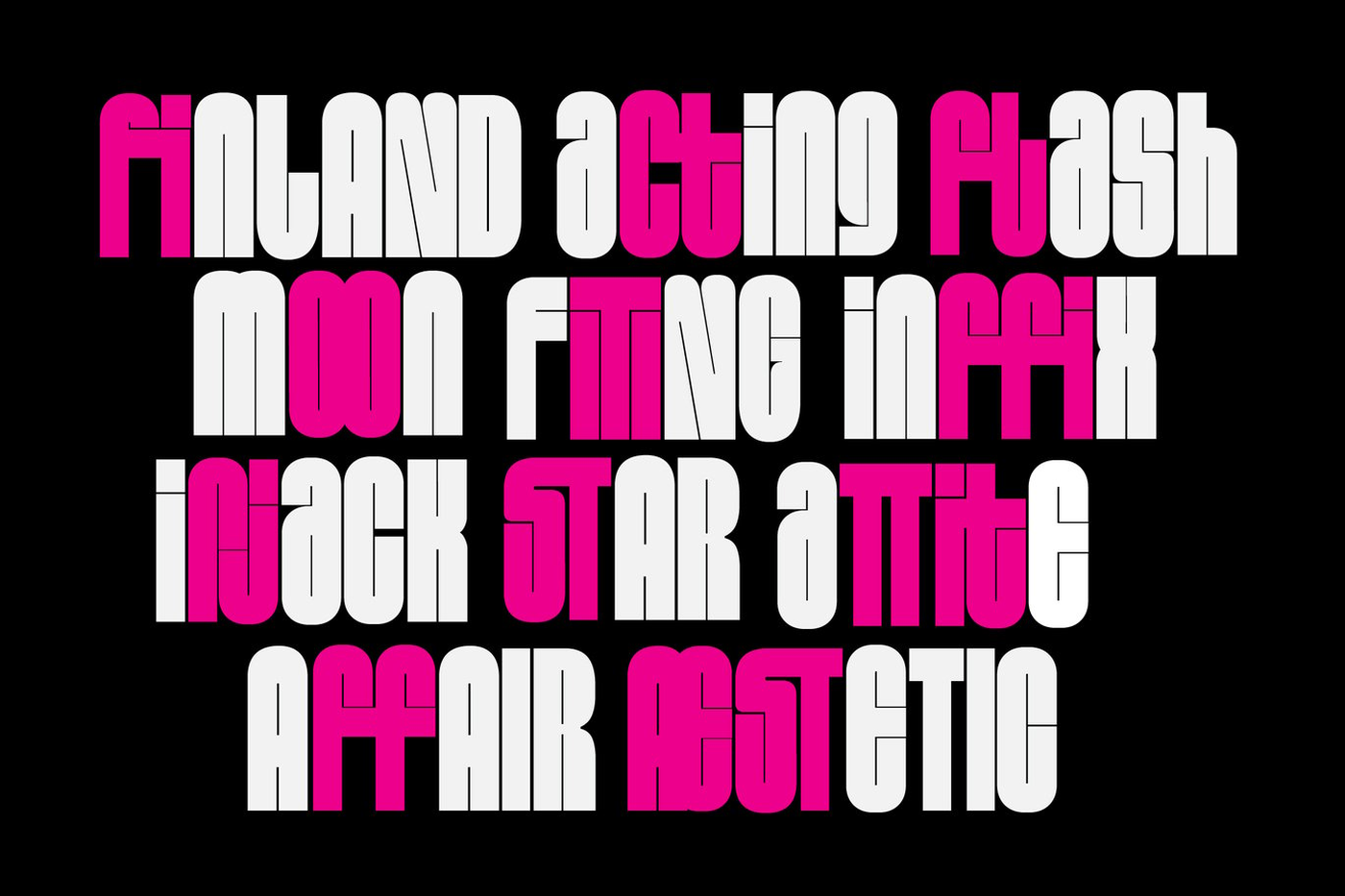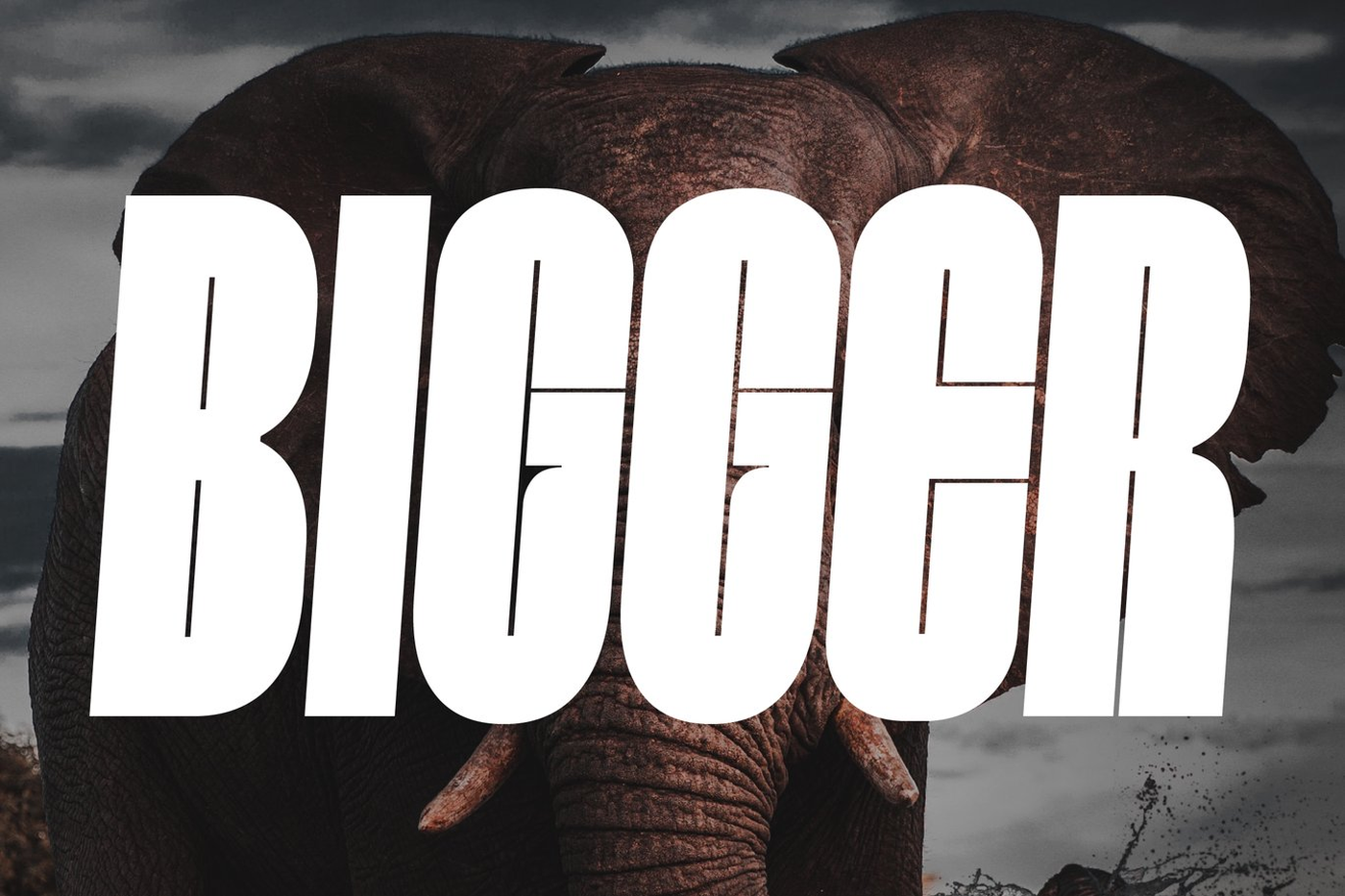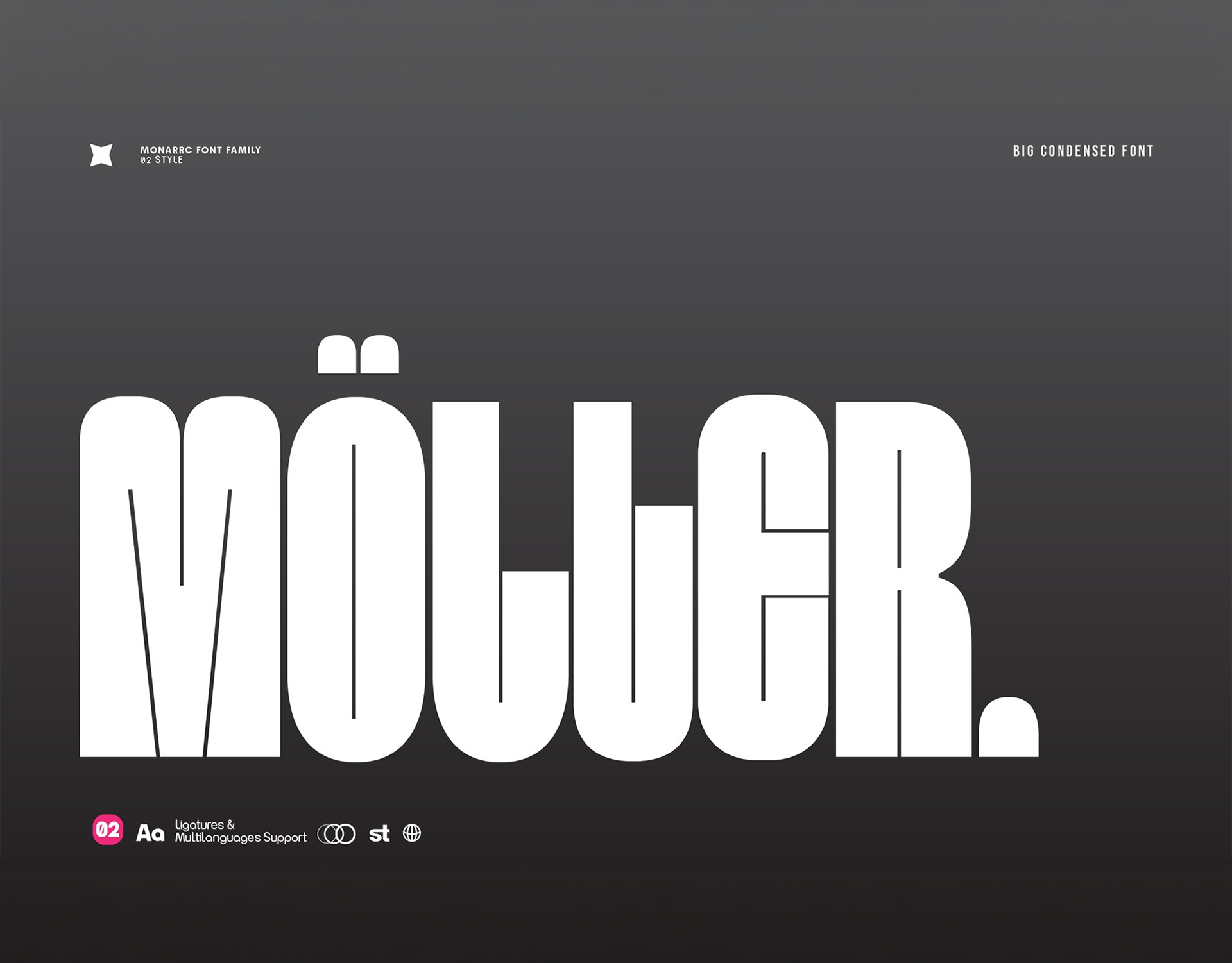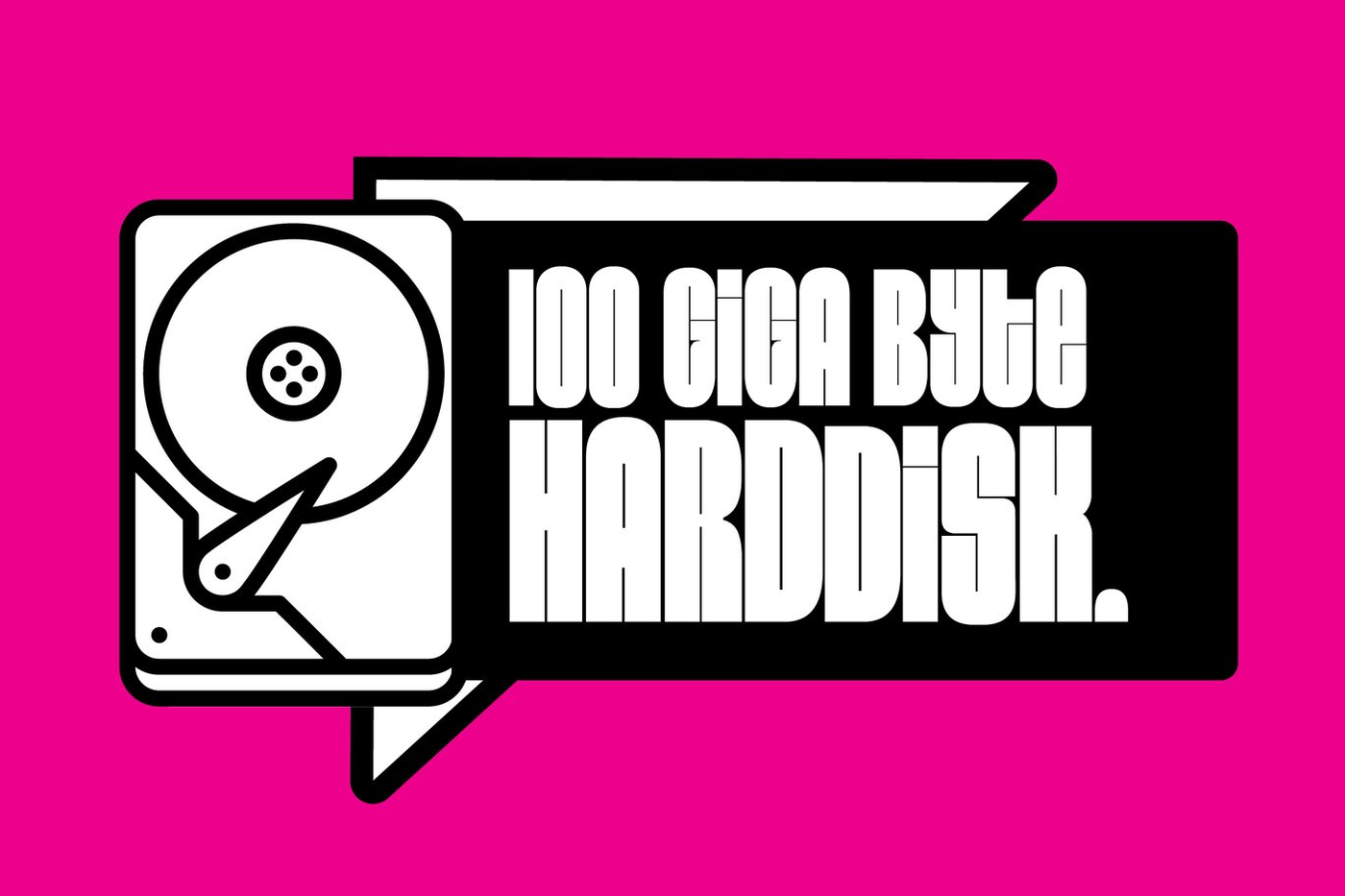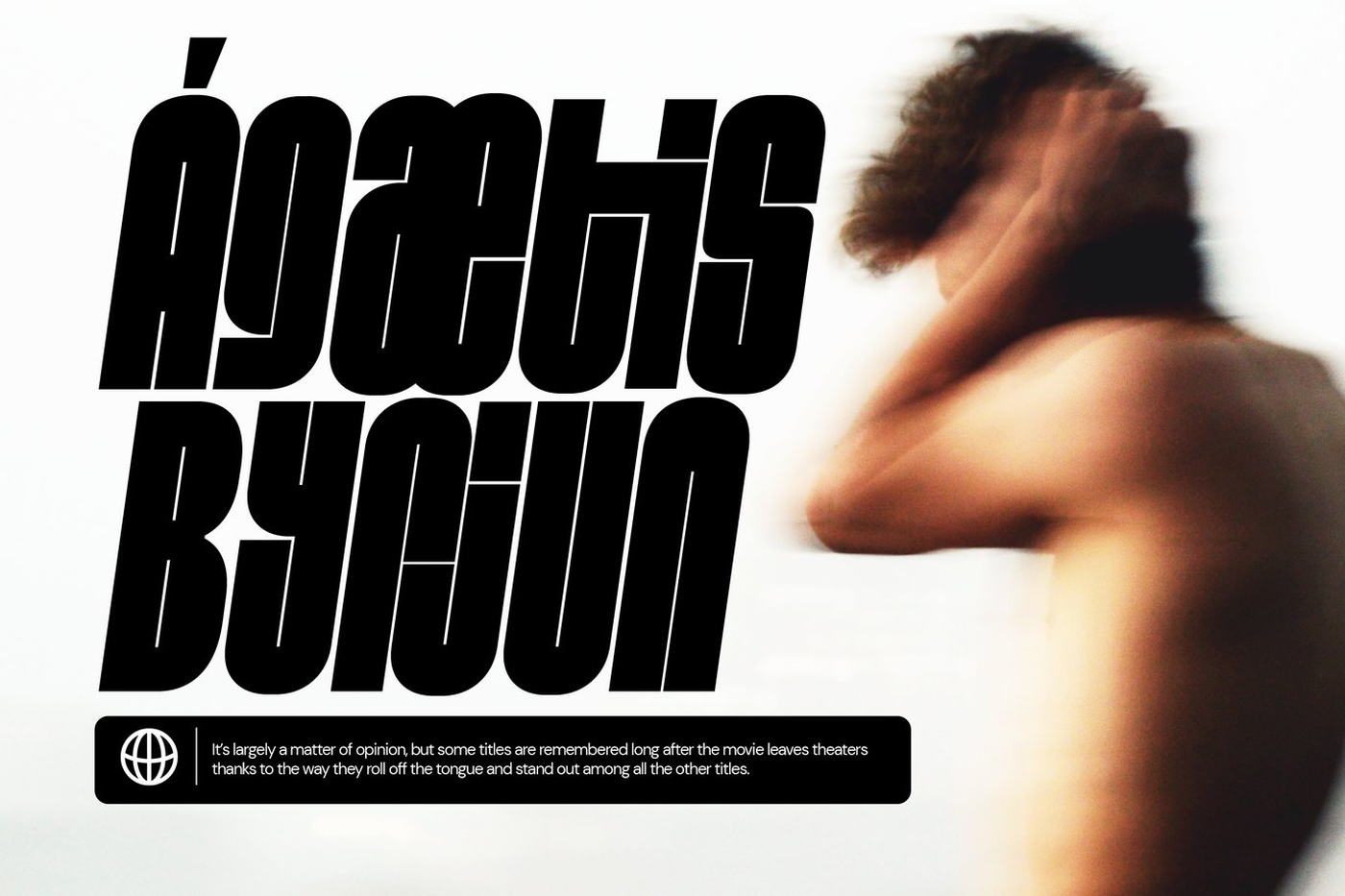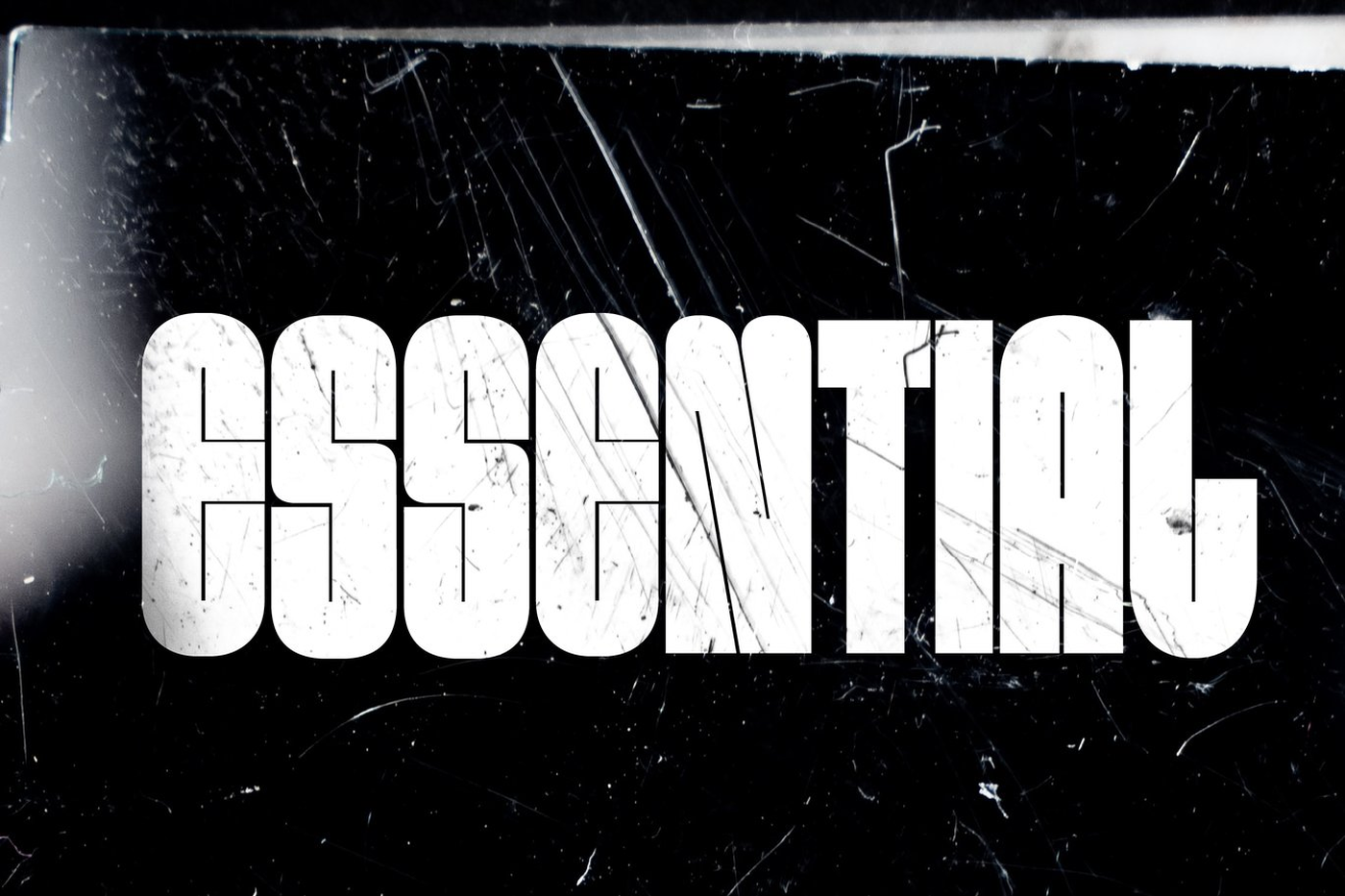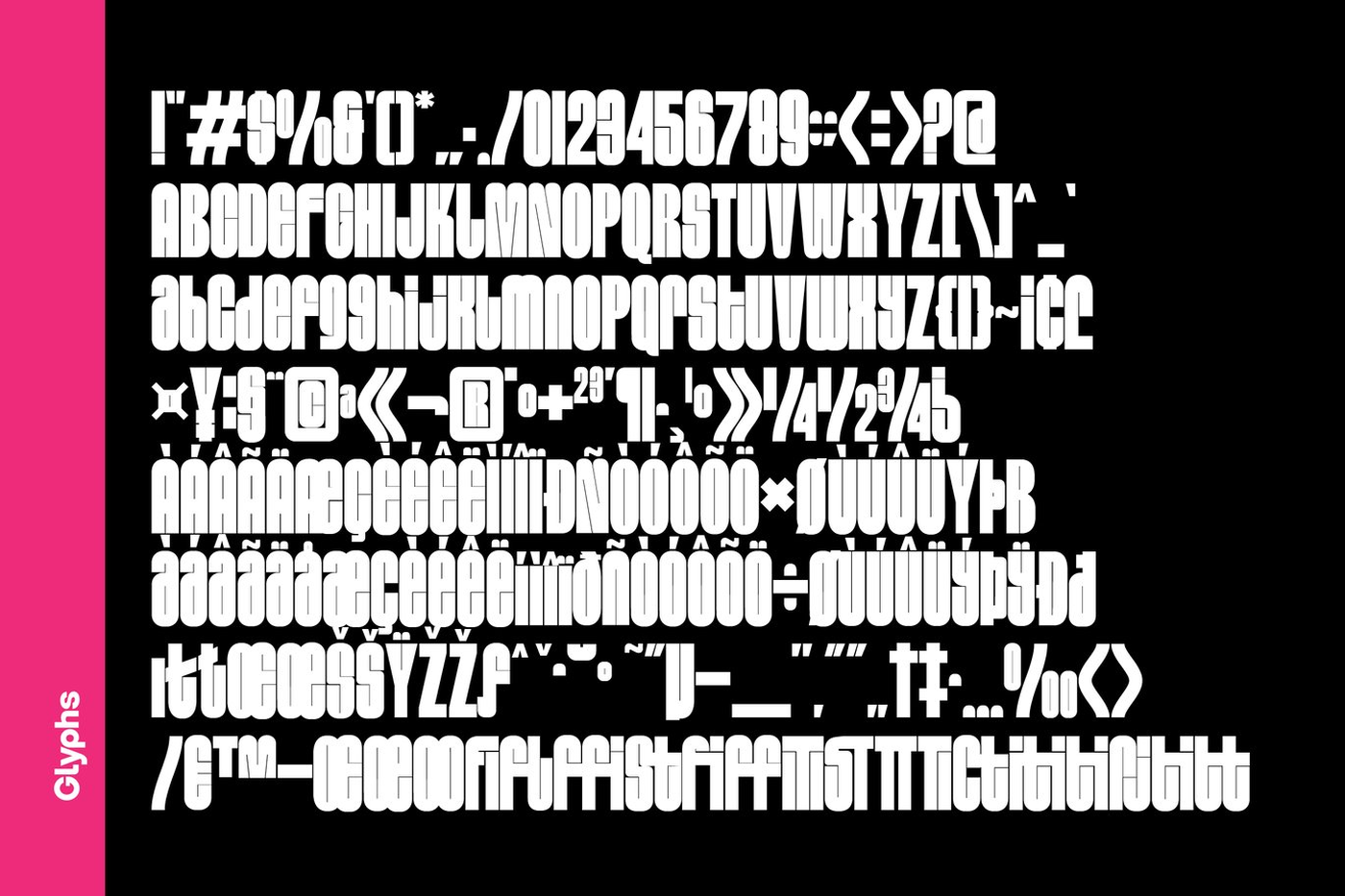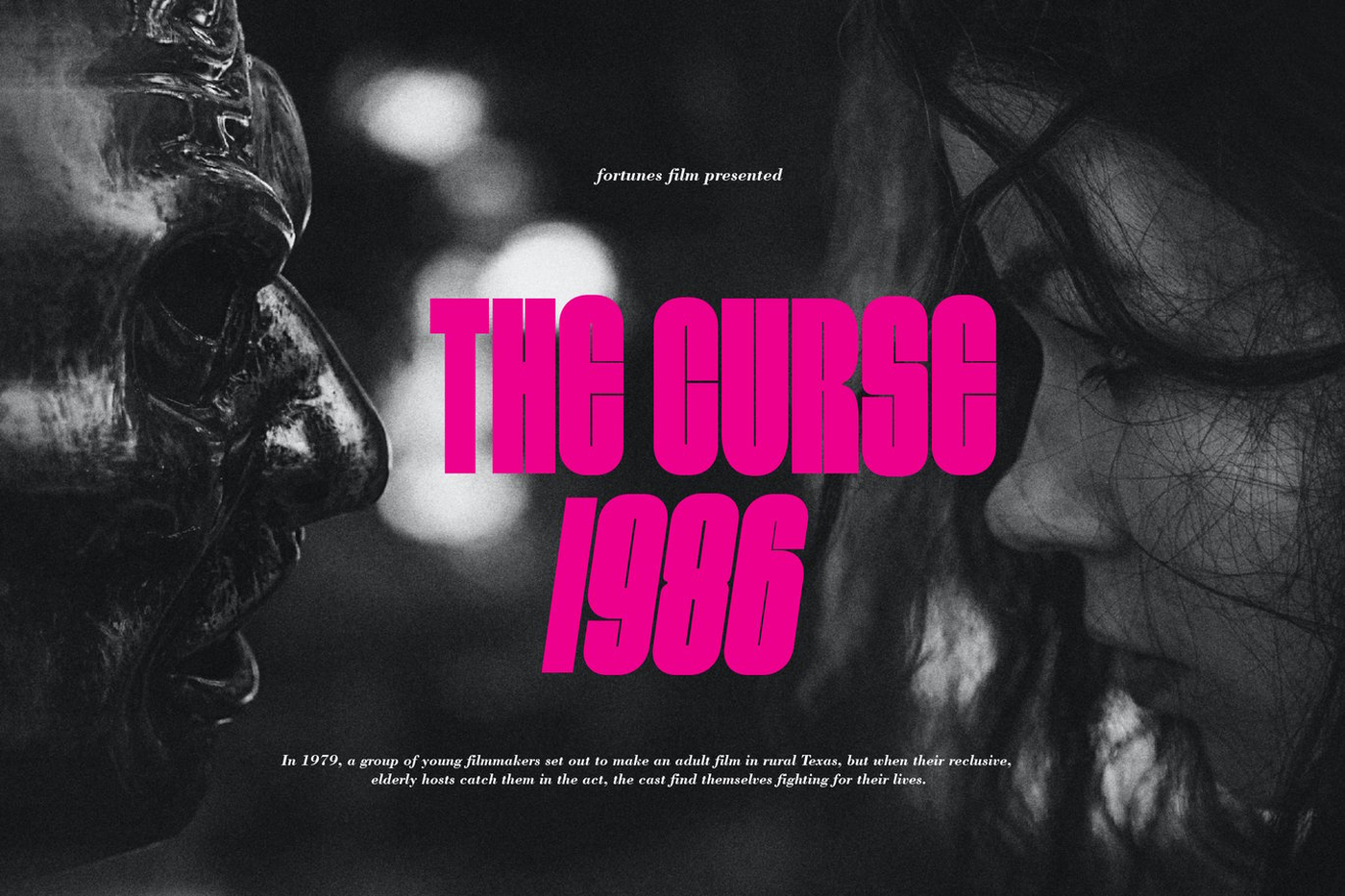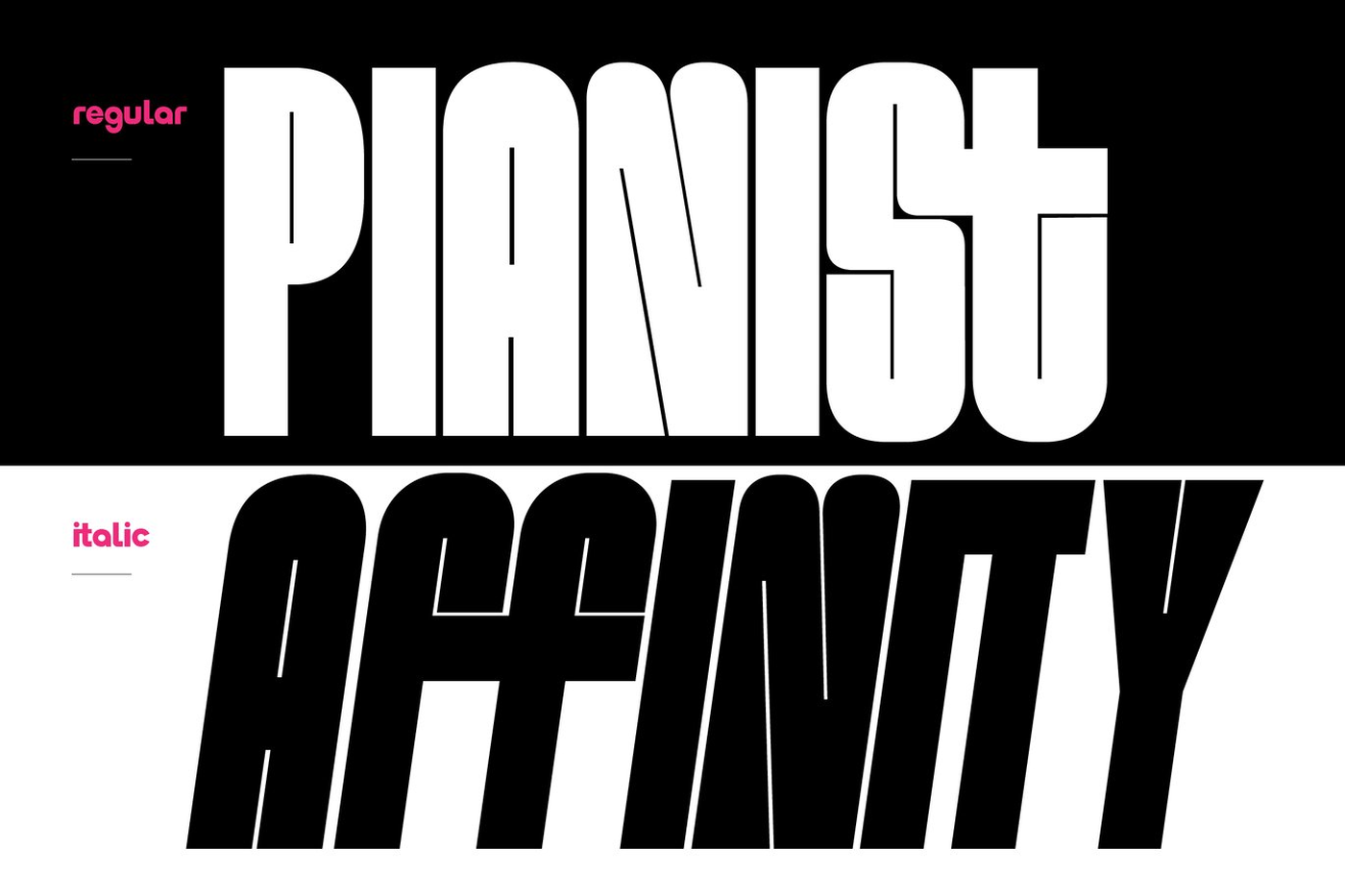
Moller - Bold Condensed Font
Moller has a strong but soft character, with a cheerful and fresh theme, supported by 2 Style. Moller is able to answer your current needs who are designing something great. Moller is a bold and unique display font. Masterfully designed to become a true favorite character, moller is able to answer your current needs who are designing something great Its weight is superior in posters, social media, headlines, magazine titles, clothing, large print formats.